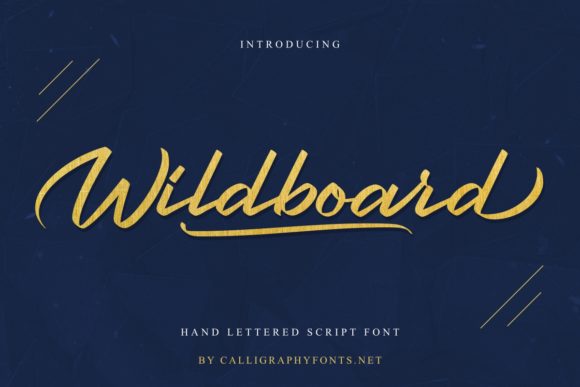
Wildboard Font
Dive into the captivating realm of Wildboard Font, where creativity takes center stage! This exquisite handwritten font, hailing from the renowned CalligraphyFonts, is a masterpiece designed to ignite your imagination.
Crafted with the utmost precision, Wildboard Font unveils a symphony of swirling strokes that dance across your screen, mirroring the delicate grace of calligraphy. Its PUA encoding empowers you to unleash a world of possibilities, granting you effortless access to a treasure-trove of glyphs and swashes.
Whether you're crafting eye-catching logos that demand attention, rebranding your social media presence with a touch of elegance, or embarking on crafty DIY projects that ignite your creativity, Wildboard Font is your steadfast companion. Its versatility knows no bounds, empowering you to transform any design into a masterpiece.
Step into the realm of Wildboard Font today and unlock the boundless potential of your imagination. Let its enchanting allure captivate your audience, leaving an unforgettable mark on every project you undertake.